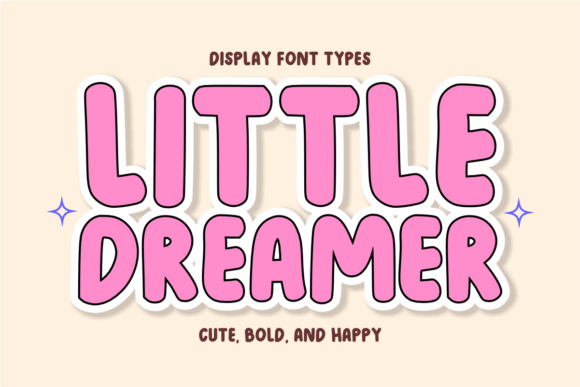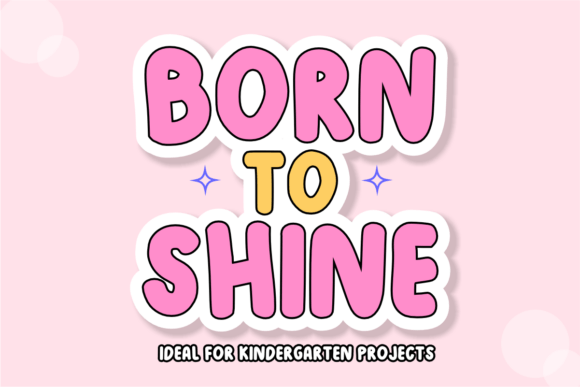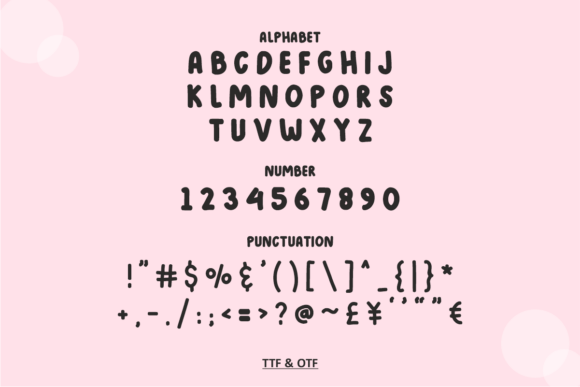
Get Ready to Pop with the Bouncy Bubble Font!
Have you ever sat down to design a project, only to be stuck on the perfect font to convey the right message? You know, that moment when you’re trying to decide between a classic serif and a modern sans-serif, but nothing seems to capture the playful vibe you’re going for?
That’s where the Bouncy Bubble Font comes in – a delightful, thick-lettered display typeface designed to radiate happiness and fun. With its soft, rounded curves and bold presence, this font is the perfect choice for designs that need to feel friendly and eye-catching. Whether you’re working on a children’s book, a vibrant merchandise branding project, or anything in between, the Bouncy Bubble Font is sure to add a touch of happiness to your design toolkit.
Bouncy Bubble Font Key Features
- Font Family: Bouncy Bubble
- Character Set: Latin, Cyrillic, Greek, and extended Latin characters
- Unique Characteristics: Hand-drawn, playful, and whimsical design with a bouncy feel, making it suitable for children’s books, magazines, and other fun content
Bouncy Bubble Font Review
Overall, I think the Bouncy Bubble Font is a fun and quirky addition to any design project. It’s great for creating a playful and energetic vibe. ✨
- The font’s irregular shape and movement create a sense of whimsy and playfulness.
- The bold lines and rounded edges give it a friendly and approachable feel.
- It’s perfect for headings and titles that need to stand out from the rest of the content.
- The font can be quite busy and overwhelming if used too much.
- It may not be the best choice for body text, as it can be difficult to read.
- The font’s irregular shape can make it challenging to align with other text elements.
Overall, I’d say the Bouncy Bubble Font is a great choice for designers looking to add some fun and personality to their work. Just be mindful of its limitations and use it thoughtfully. With the right balance, it can be a real showstopper! ✨
Tips for Getting the Most Out of Bouncy Bubble Font
To get the most out of the Bouncy Bubble Font, try the following:
- Use it for headings and titles to add a playful touch.
- Combine the Bouncy Bubble Font with other playful fonts for a fun and whimsical look.
Common Use Cases for Bouncy Bubble Font
The Bouncy Bubble Font is perfect for:
- Children’s books and educational materials.
- Playful advertisements and marketing materials.
- Wedding invitations and party decorations.